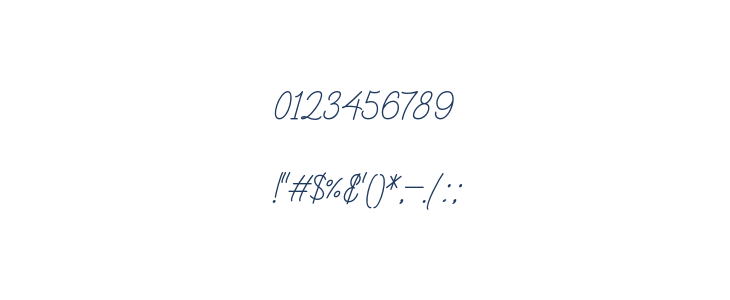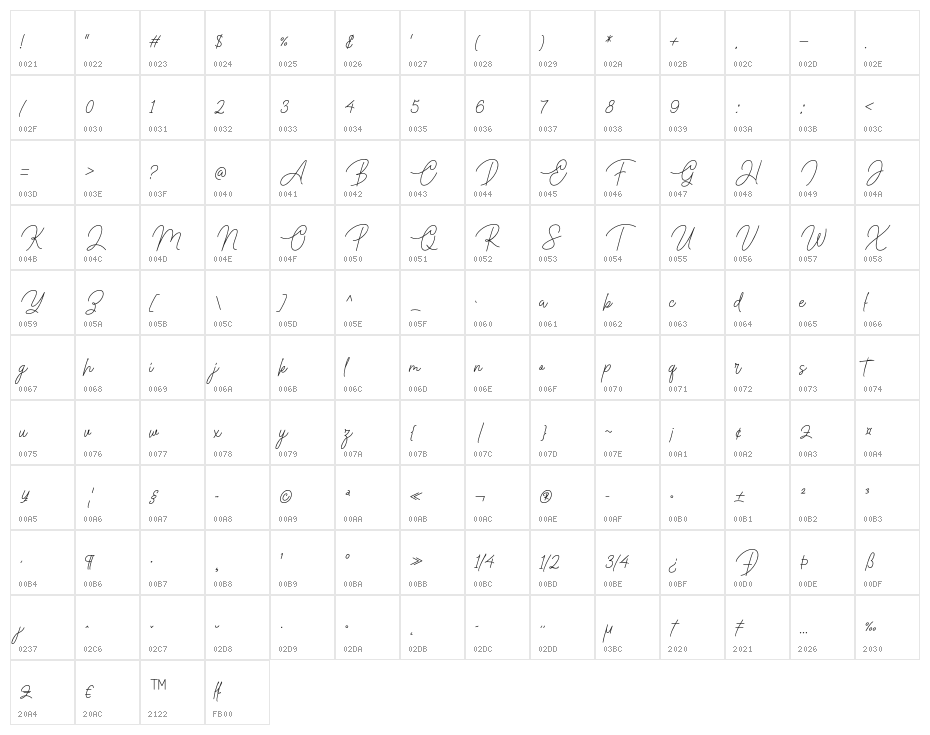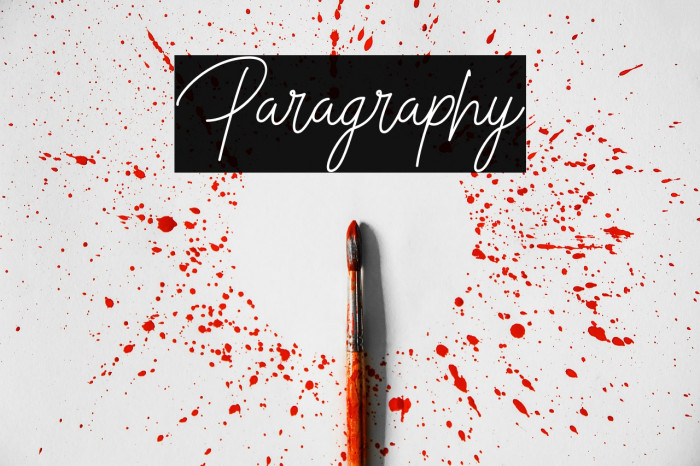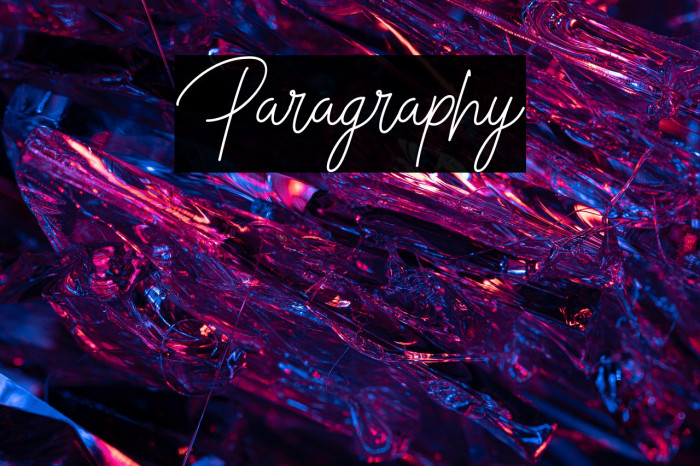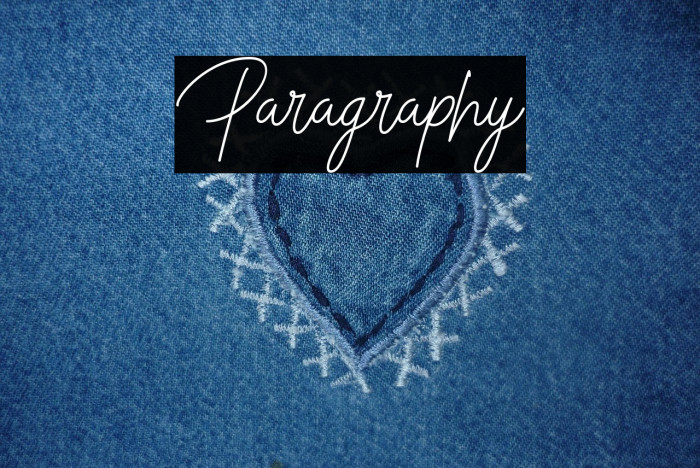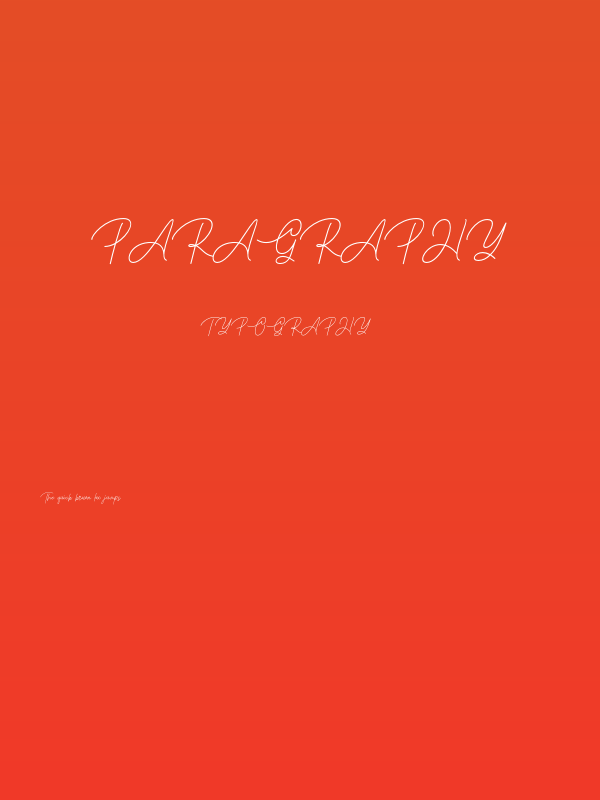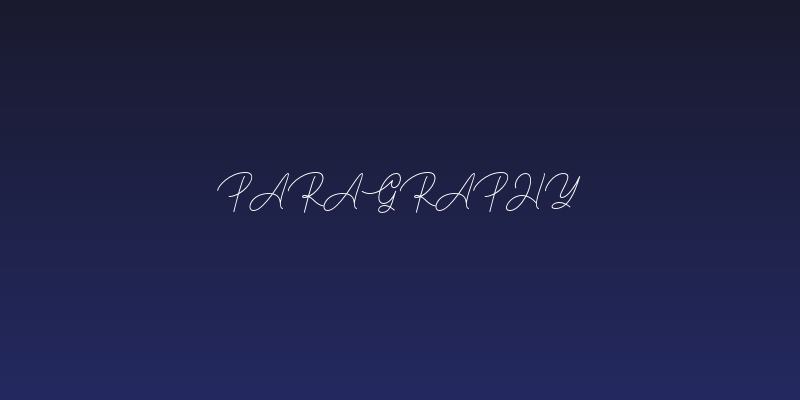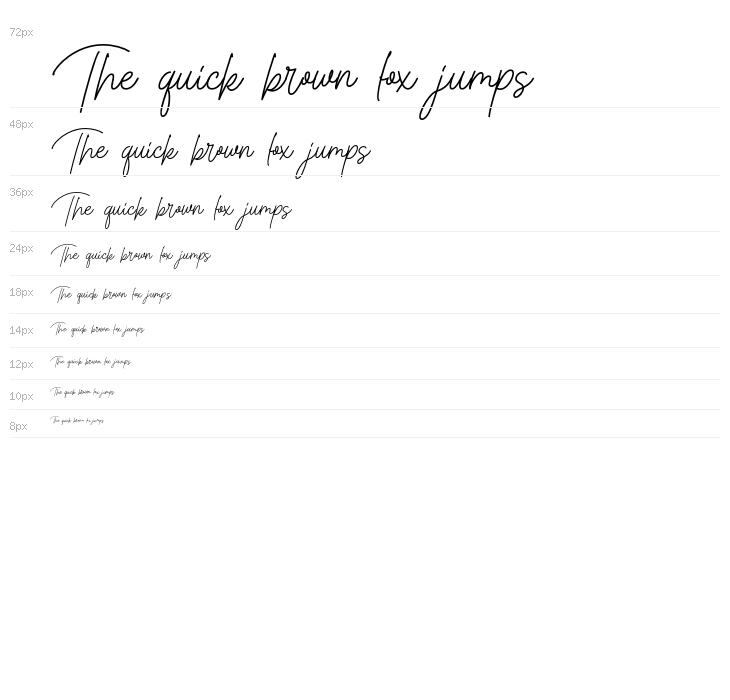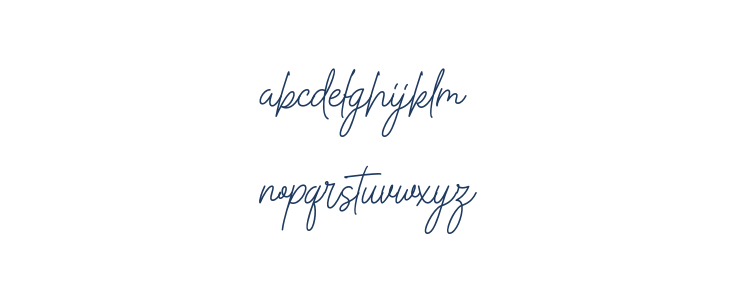
Paragraphy Font
Paragraphy Description
This elegant script font features fluid, interconnected strokes that mimic the natural flow of handwriting. The uppercase letters are gracefully elongated, with delicate loops and curves that add a touch of sophistication. The lowercase letters maintain a consistent style, with smooth transitions and a slight slant that enhances readability. Numbers and special characters are designed to complement the overall aesthetic, maintaining the same graceful curves and fluidity. This font exudes a sense of elegance and charm, making it ideal for projects that require a personal, handwritten touch.
| Overall Style | Elegant, Handwritten |
| Use Case | Logos, Invitations, Personal Branding |
| Proposed Projects | Wedding invitations, greeting cards, personal branding, and elegant packaging designs. |